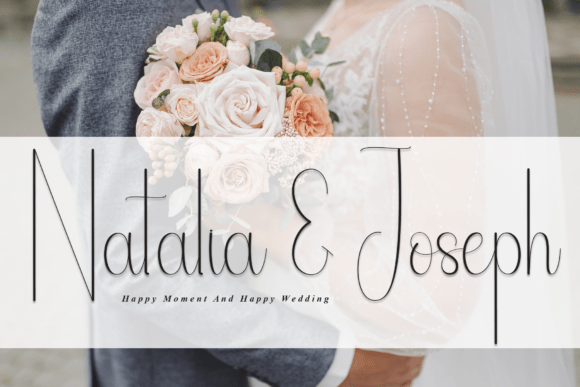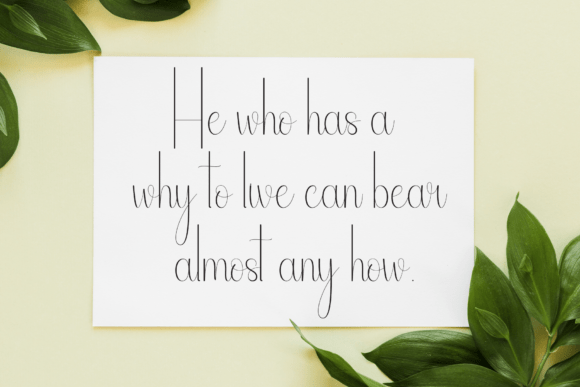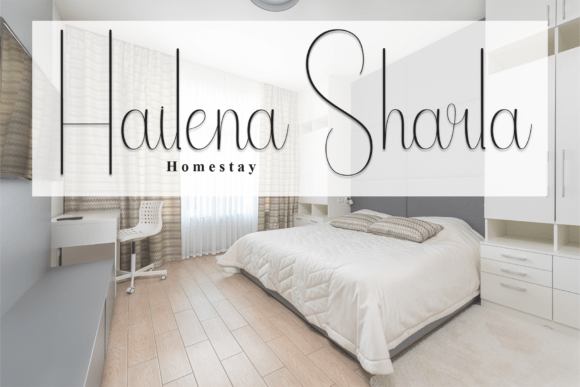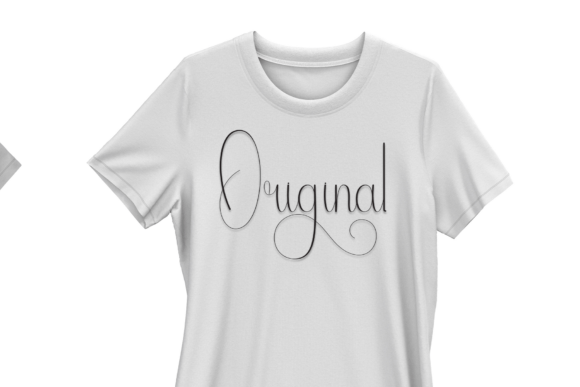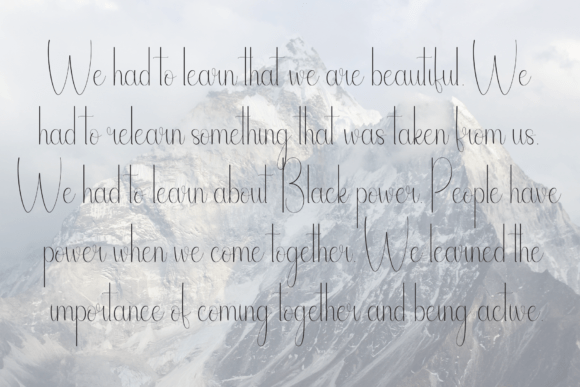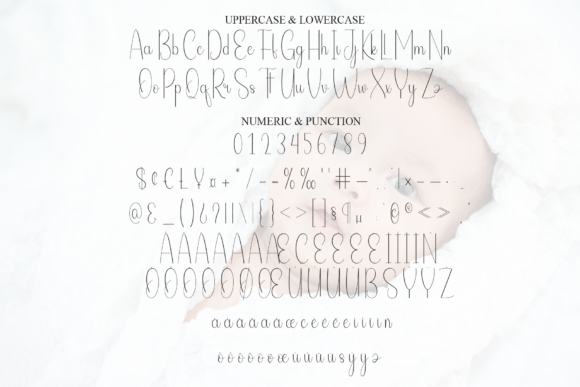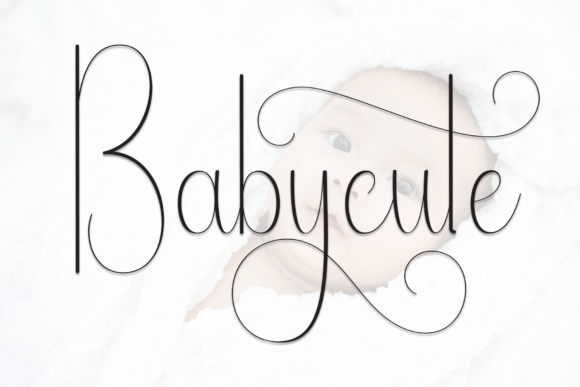
Babycute Font: Elevate Your Designs with Elegance and Charm
In the world of typography, few fonts manage to capture the essence of elegance and charm as effortlessly as the Babycute Font. This stylish handwritten script font has been making waves in the design community, and for good reason. Its fluid, graceful strokes exude a sense of sophistication and refinement, making it the perfect addition to any design project that requires a touch of class.
The Characteristics of Babycute Font
So, what sets Babycute Font apart from other script fonts on the market? For starters, its smooth curves and natural flow create a timeless look that is both refined and visually appealing. The font’s fluid strokes are carefully crafted to give it a sense of movement and fluidity, making it perfect for designs that require a sense of dynamism and energy.
Another key characteristic of Babycute Font is its versatility. Whether you’re working on a branding project, creating custom invitations, or designing stationery, this font is sure to impress. Its elegant and charming aesthetic makes it suitable for a wide range of applications, from formal events to everyday design projects.
Perfect for Branding, Invitations, and Stationery
Babycute Font is particularly well-suited for branding projects, as it adds a personal and sophisticated touch to any logo or design. Its unique and stylish aesthetic helps to create a lasting impression, making it perfect for businesses looking to establish a strong brand identity.
When it comes to invitations and stationery, Babycute Font is equally impressive. Its elegant and refined aesthetic makes it perfect for formal events, such as weddings and baby showers, as well as everyday correspondence. Whether you’re designing custom invitations, greeting cards, or thank-you notes, this font is sure to add a touch of class and sophistication.
Why Designers and Crafters Love Babycute Font
So, why have designers and crafters fallen in love with Babycute Font? For one, its unique and stylish aesthetic makes it a standout in a sea of more traditional fonts. Its versatility and range of applications also make it a favorite among designers, who appreciate the ability to use it across multiple projects.
Another reason designers and crafters love Babycute Font is its ease of use. With its clear and concise letterforms, this font is easy to read and understand, making it perfect for designs that require a high level of legibility. Whether you’re working on a digital project or a print design, Babycute Font is sure to deliver.
Tips for Using Babycute Font in Your Designs
So, how can you make the most of Babycute Font in your designs? Here are a few tips to get you started:
- Use it sparingly: While Babycute Font is elegant and charming, it can be overwhelming if used excessively. Use it sparingly to add a touch of sophistication to your design.
- Pair it with contrasting fonts: To create visual interest, pair Babycute Font with contrasting fonts that provide a clear and concise contrast.
- Experiment with colors: Babycute Font looks stunning in a range of colors, from classic black and white to bold and bright hues. Experiment with different colors to find the perfect fit for your design.
In conclusion, Babycute Font is a stylish handwritten script font that exudes elegance and charm with its fluid, graceful strokes. Perfect for branding, invitations, and stationery, it adds a personal and sophisticated touch to any design. With its smooth curves and natural flow, Babycute Font creates a timeless, refined look that is sure to impress. Whether you’re a designer or crafter, this font is sure to become a favorite in your toolkit.